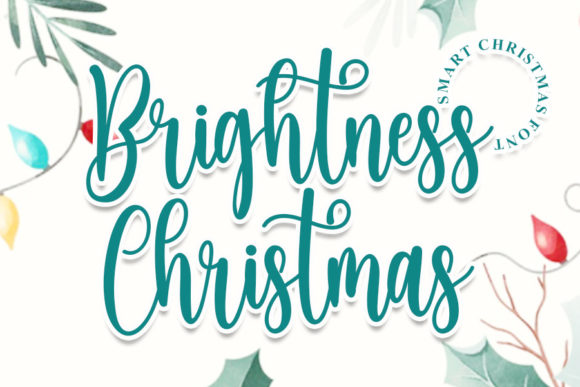
Introducing Brightness Christmas Font, an exquisite and enchanting script that exudes timeless beauty. This masterpiece is meticulously crafted by the talented team at Inermedia STUDIO, designed to elevate your mobile designs with its graceful strokes and captivating curves.
Step into a world of boundless creativity as Brightness Christmas Font dances across your screen, effortlessly enhancing your projects with a touch of elegance and originality. Its delicate handwritten style evokes a sense of intimacy and warmth, making it the perfect choice for heartfelt greetings, intimate invitations, and captivating social media posts.
Whether you're a seasoned designer or just starting your typographic journey, Brightness Christmas Font will become your trusted companion. Its versatility extends to a myriad of design endeavors, from branding and packaging to web design and social media graphics. Let its enchanting charm captivate your audience and leave an indelible mark on their hearts.
Experience the transformative power of Brightness Christmas Font today and embark on a typographic adventure that will ignite your imagination and elevate your designs to new heights. Let its beauty illuminate your projects, casting a spell of elegance and enchantment that will transport your audience to a realm of boundless creativity.